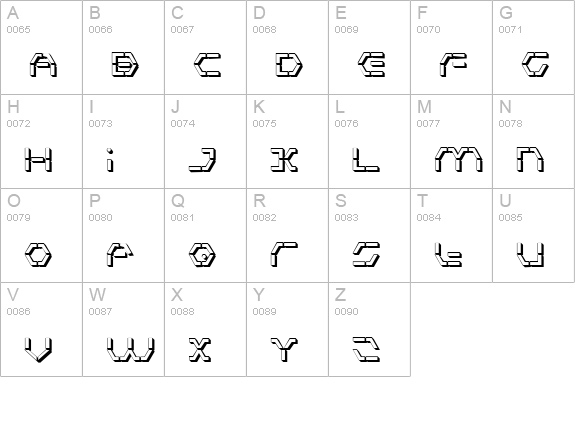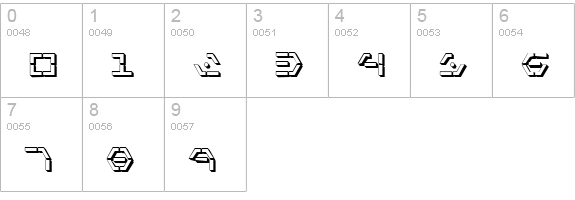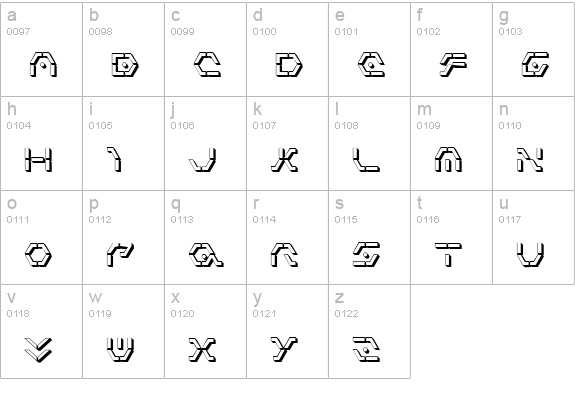
Zeta Sentry 3D font is a dynamic and futuristic typeface that brings a powerful and commanding presence to any design project. With its sleek and modern aesthetic, this font is perfect for creating eye-catching headlines, titles, and logos that demand attention. The three-dimensional effect adds depth and dimension, making your text stand out in a bold and striking way. What makes Zeta Sentry 3D font even more appealing is that it is completely free to download at FontsMarket.com. This means you can easily access this stunning font to enhance your creative projects without any cost. Whether you're working on posters, banners, websites, or any other design that requires a touch of sophistication and modernity, Zeta Sentry 3D font is the perfect choice. Download it today and elevate your designs to a whole new level.